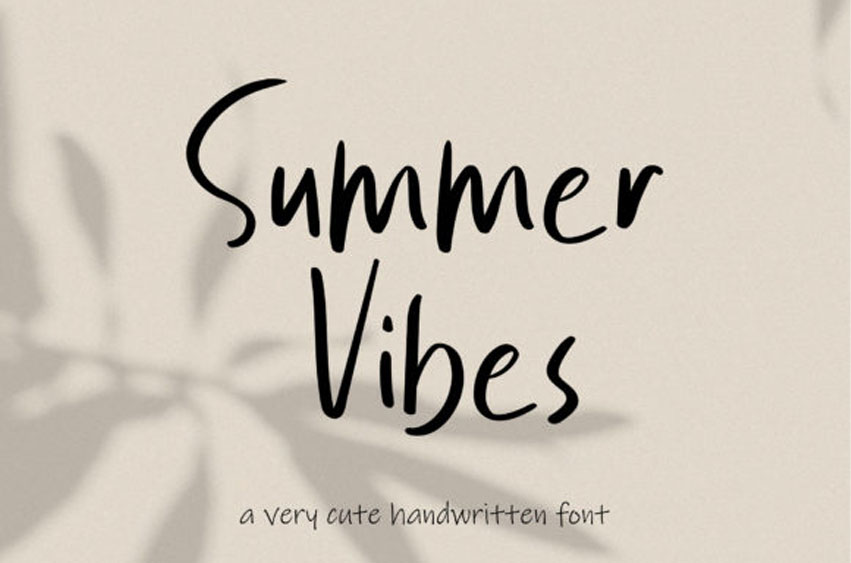
Summer Vibes Font
Summer Vibes Font s a very cute and fun script that works best for any design project that celebrates summer!
It will certainly amaze your readers.